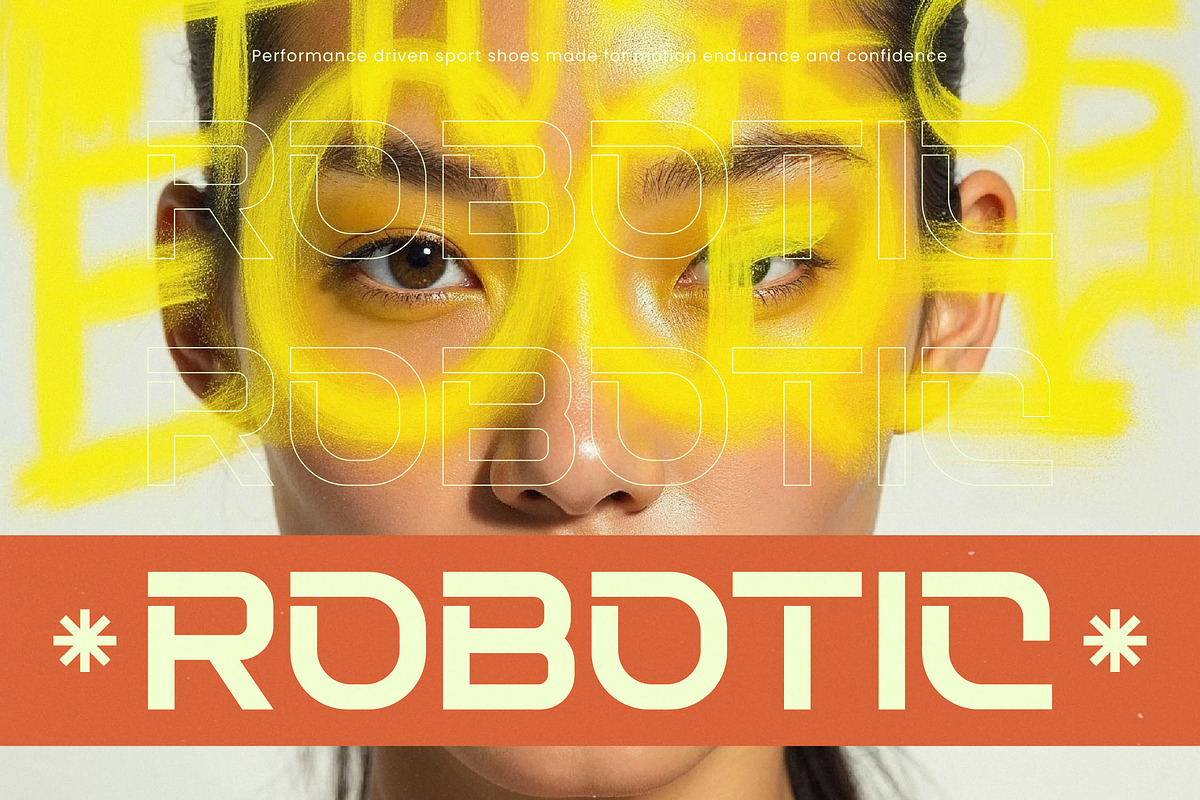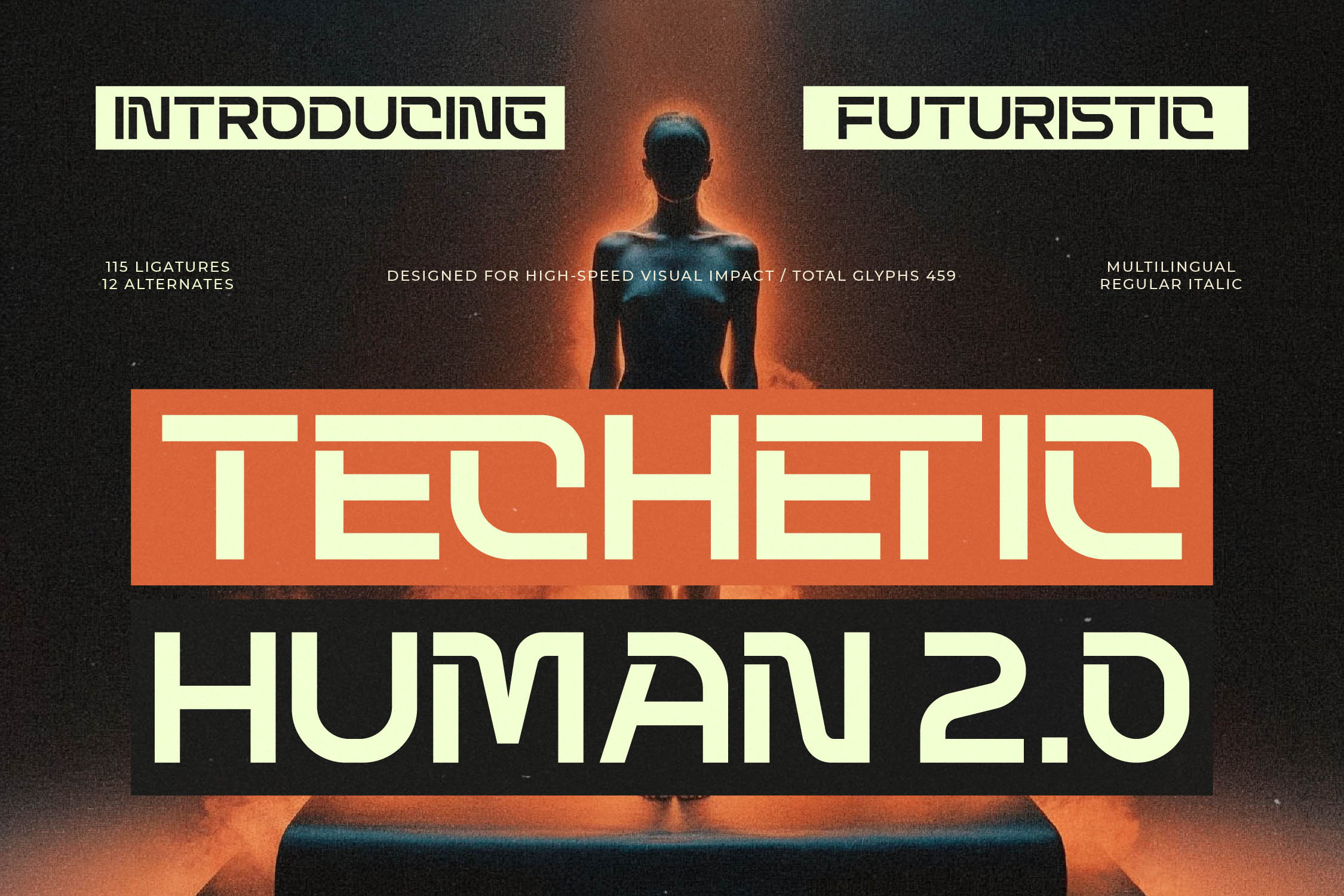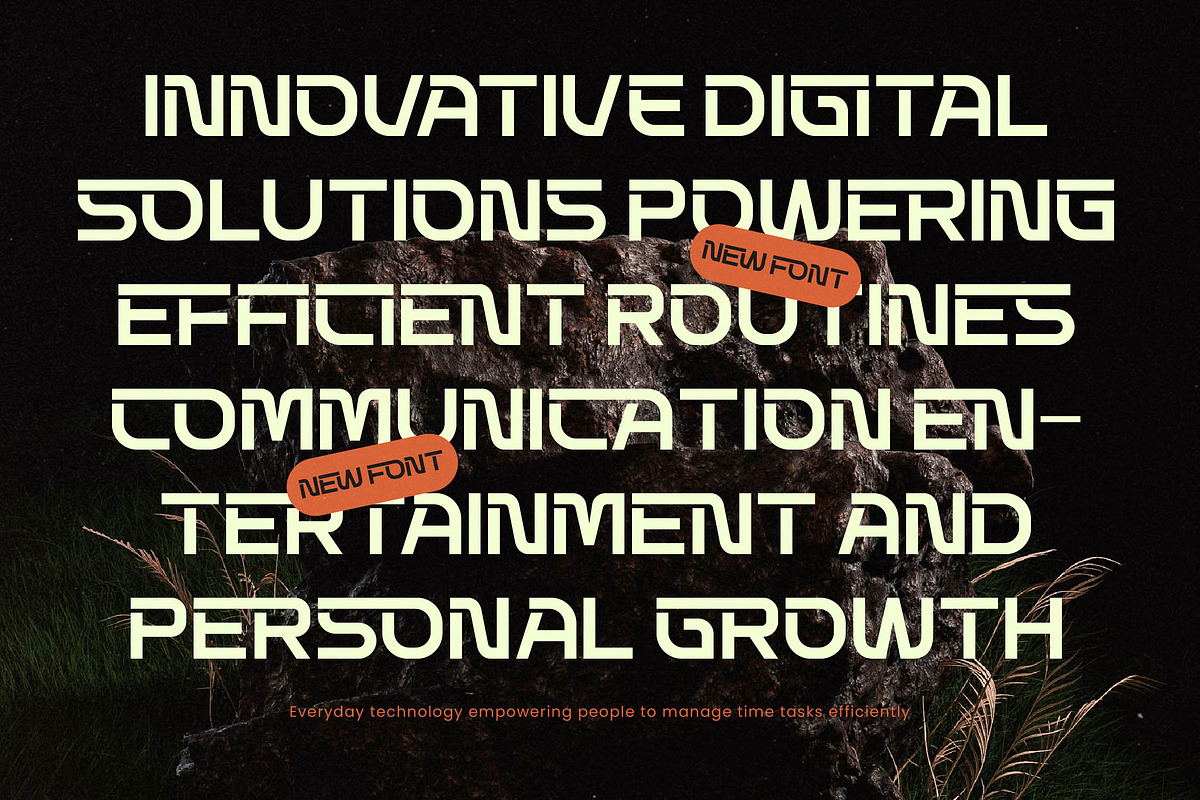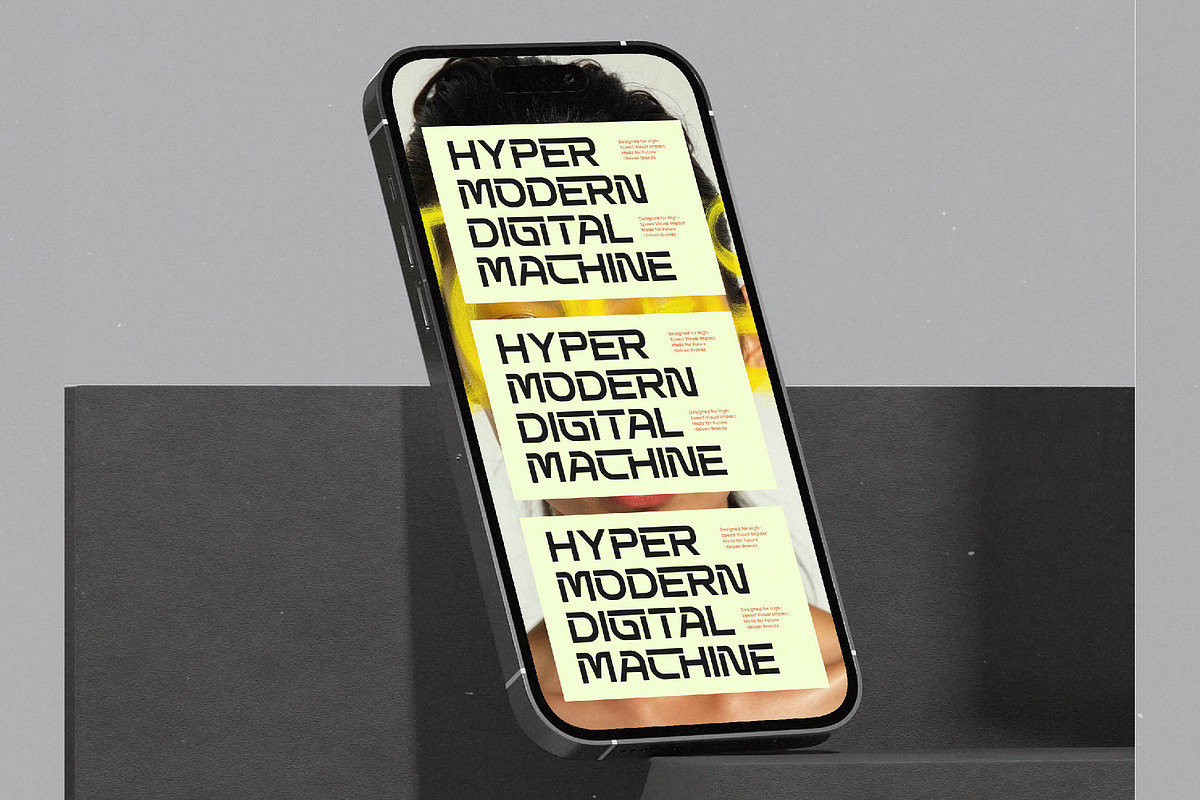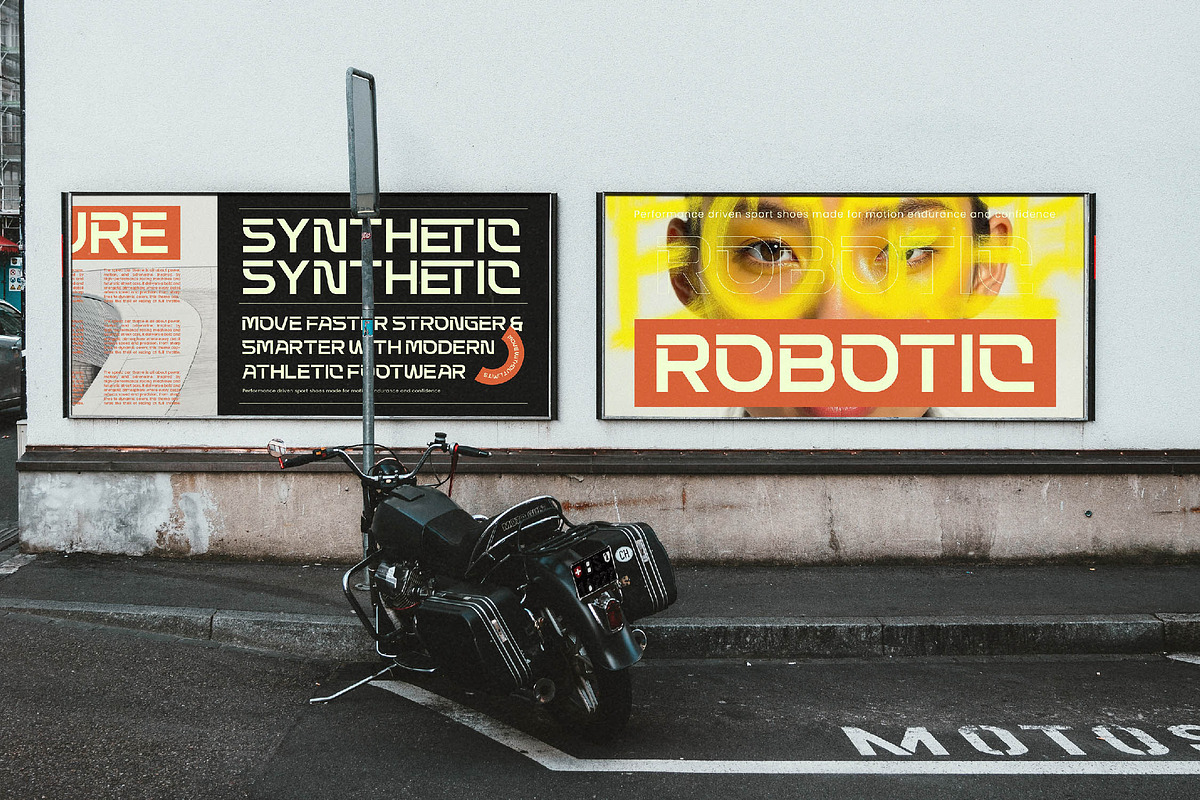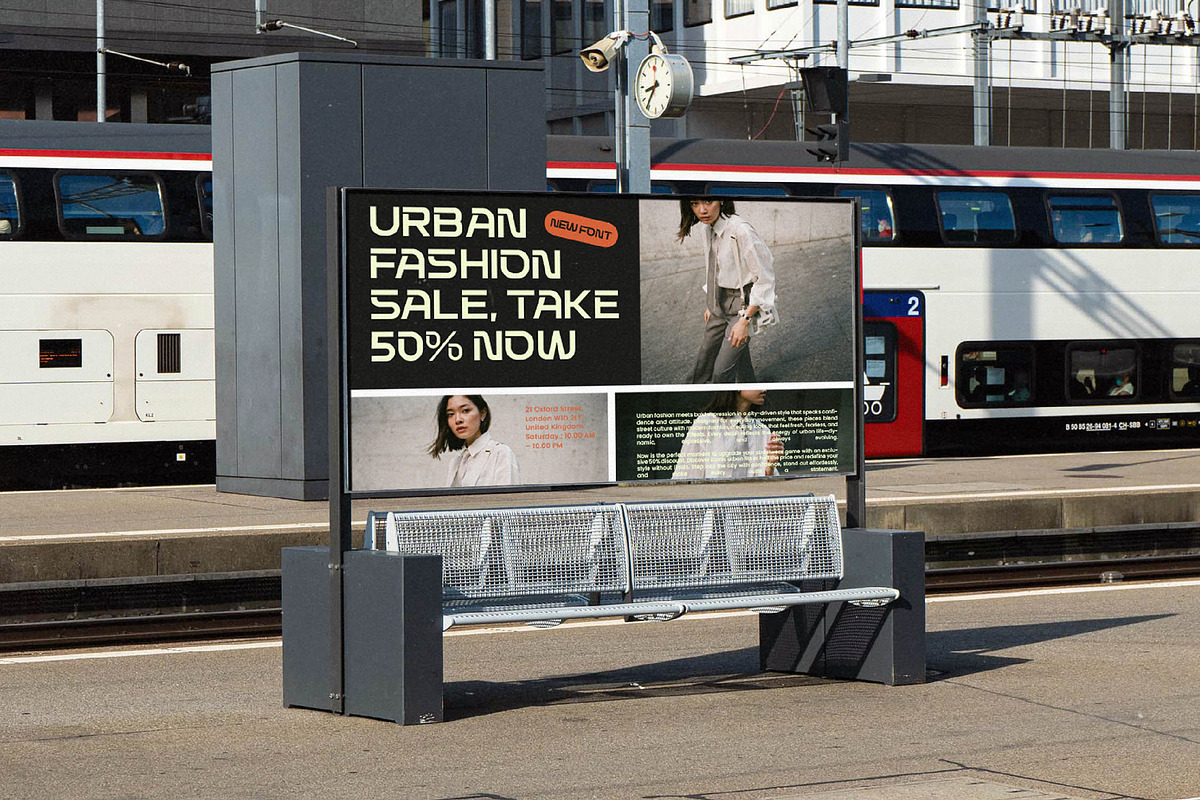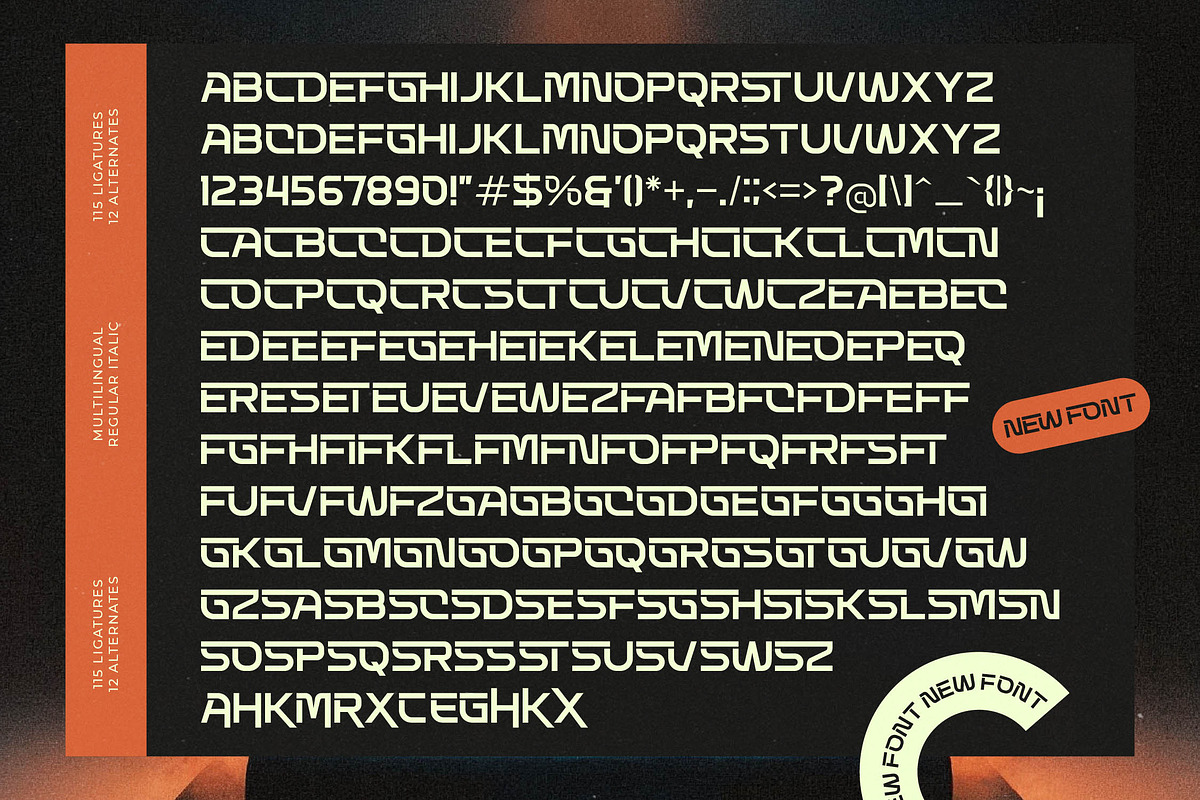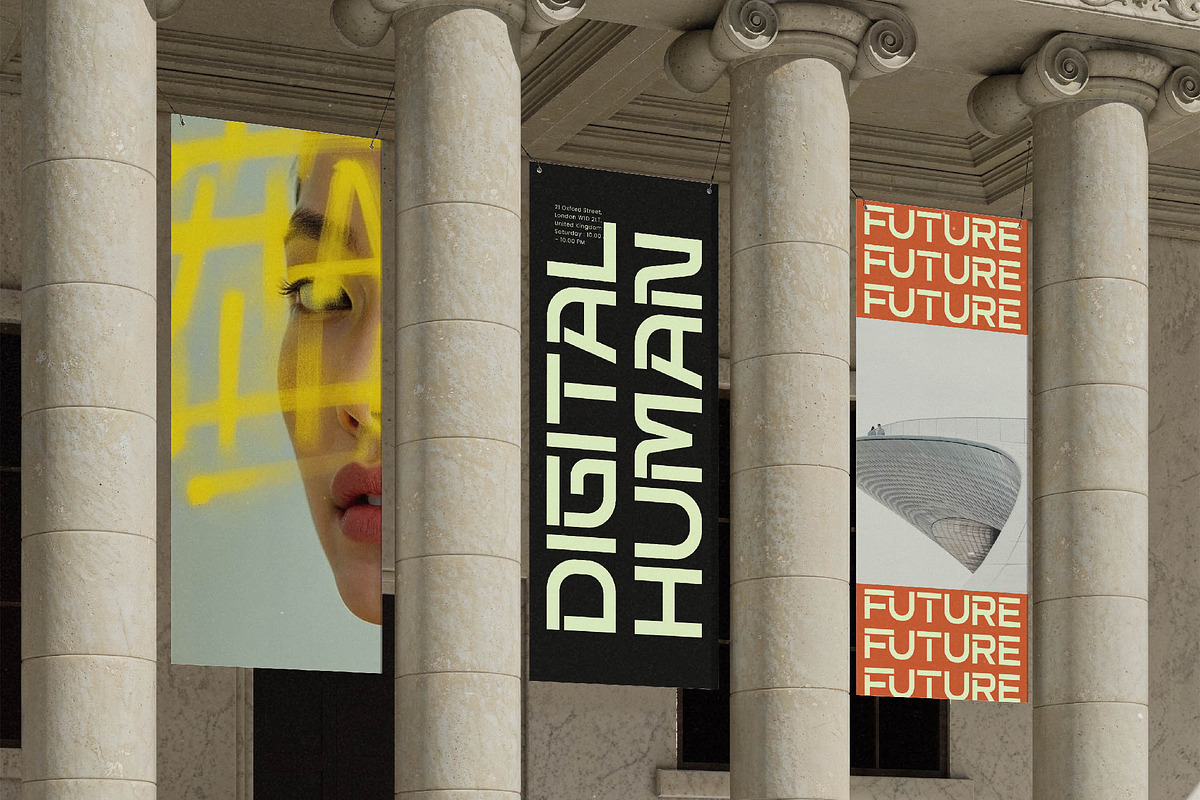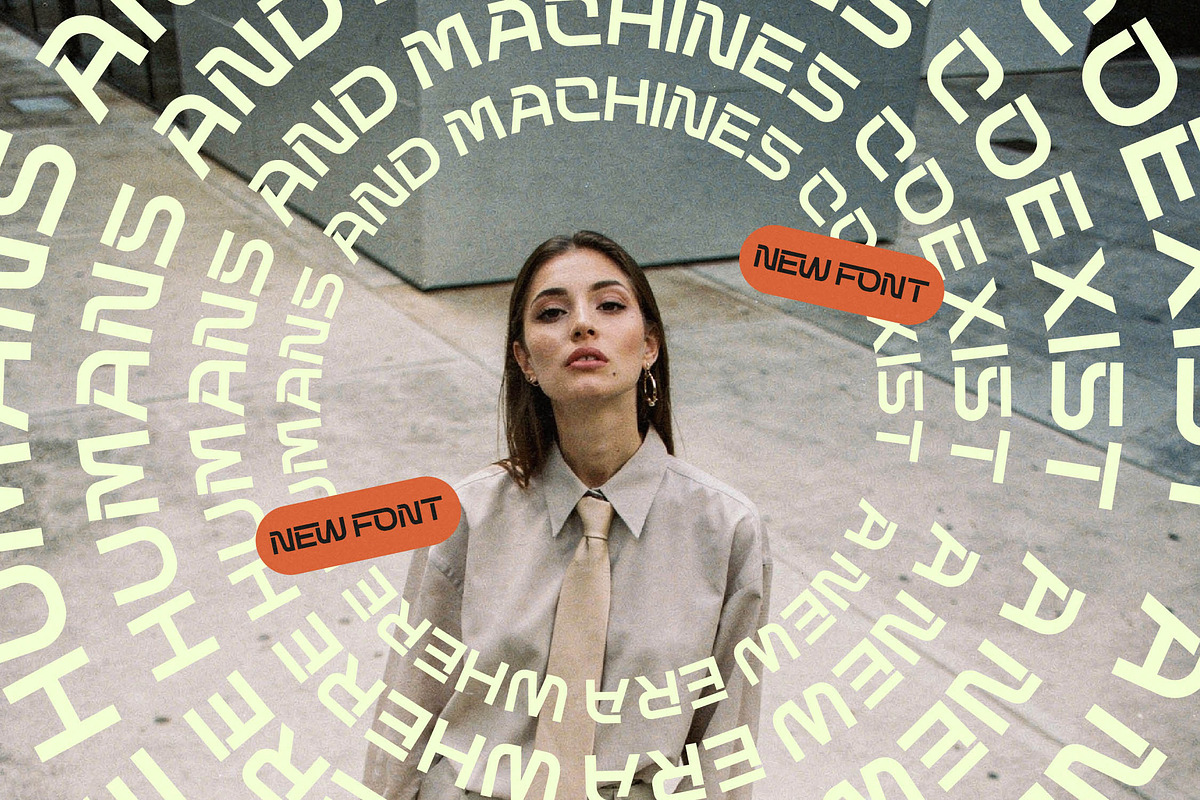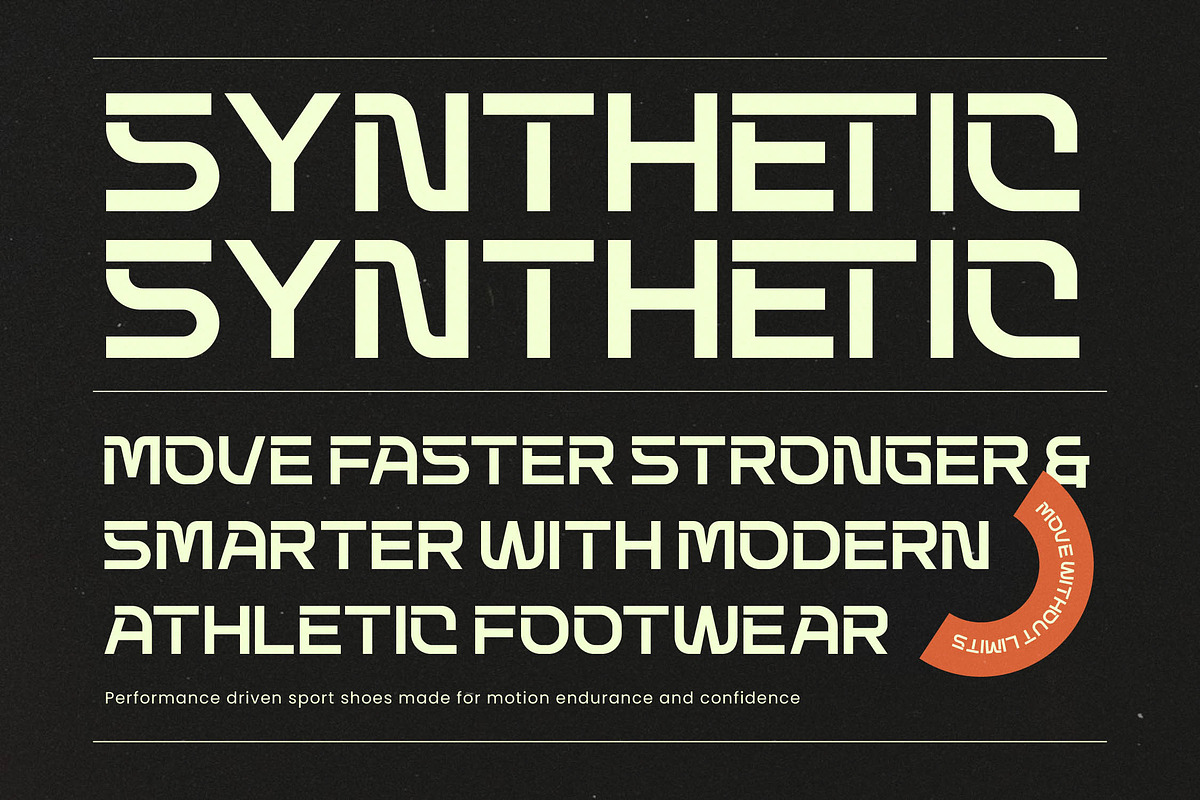
Techetic Human Futuristic Font
Step into the next phase of digital evolution with Techetic Human, a typeface engineered for high-speed visual impact and mechanical precision. This font commands instant attention with its razor-sharp geometry and undeniable presence in a tech-driven world.
Inspired by the sleek aesthetics of transhumanism and high-velocity data streams, the design captures the essence of a future where organic form meets digital perfection. It breathes the atmosphere of a high-tech laboratory and the neon-lit corridors of an advanced cyberpunk metropolis.
Built for maximum branding impact, this modern serif display provides a sense of luxury typography despite its industrial roots, acting as a high-contrast serif alternative and a premier editorial font. It is the ultimate choice for designers who need to convey innovation and a forward-thinking mindset in every single character.
By tapping into the current modern serif trend and the global rise of editorial display fonts, this typeface establishes a new benchmark for character-driven typography. It meets the market demand for visuals that feel both cutting-edge and timelessly professional for modern tech giants.
Perfect for high-stakes logo design, corporate branding, and cinematic editorial layouts, it also excels in premium packaging for tech hardware or avant-garde fashion lookbooks. Its versatility even allows it to make a statement in unconventional wedding stationery or futuristic event invites.
This comprehensive package includes over 115 unique ligatures and 12 distinct alternates to provide endless creative combinations. Full multilingual support and a wide range of international characters ensure your message reaches a global audience, even without traditional swashes, relying instead on its pure geometric power.